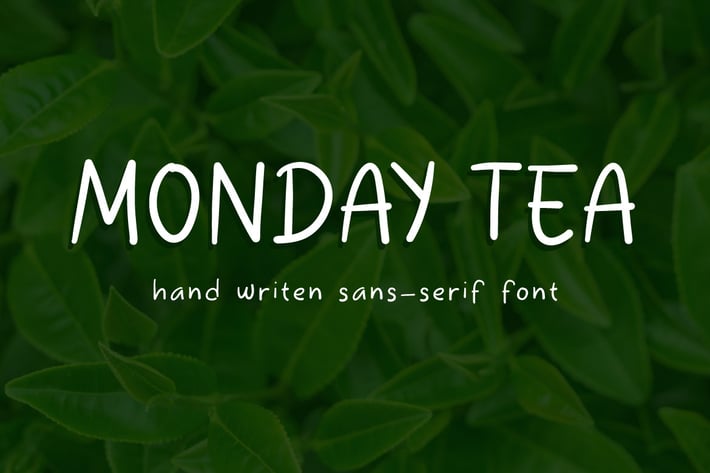
Monday Tea - Handwriten Sans-serif Font
Hello! Monday Tea is a simple handwritten font.
Monday Tea can be used in any works such as flyer, book title, advertisement, social media content, logo and many more.